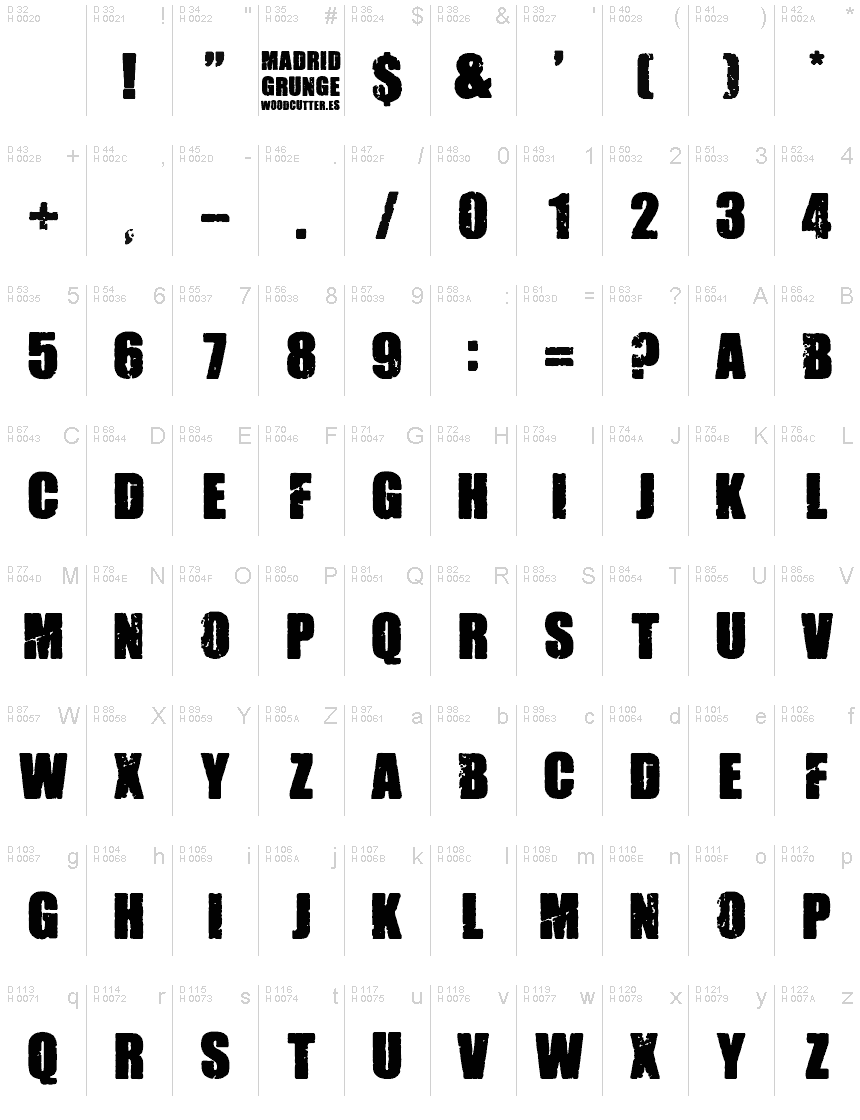
Madrid Grunge
Madrid Grunge is a bold, condensed display font with an erodedvisual style. Designed by Woodcutter Manero, this font exudes a gritty, vintage aesthetic that instantly commands attention. The irregular edges and weathered textures create a sense of rugged authenticity, making it well-suited for headlines, posters, and other design elements that require a strong, impactful presence.
Its condensed width allows for compact typesetting, while the bold weight ensures legibility even at larger sizes. Madrid Grunge would thrive in contexts that call for a raw, industrial-inspired aesthetic, such as branding for construction companies, automotive services, or music festivals. This font's unique character and versatility make it a valuable asset for designers seeking to inject an edgy, vintage-inspired flair into their projects.